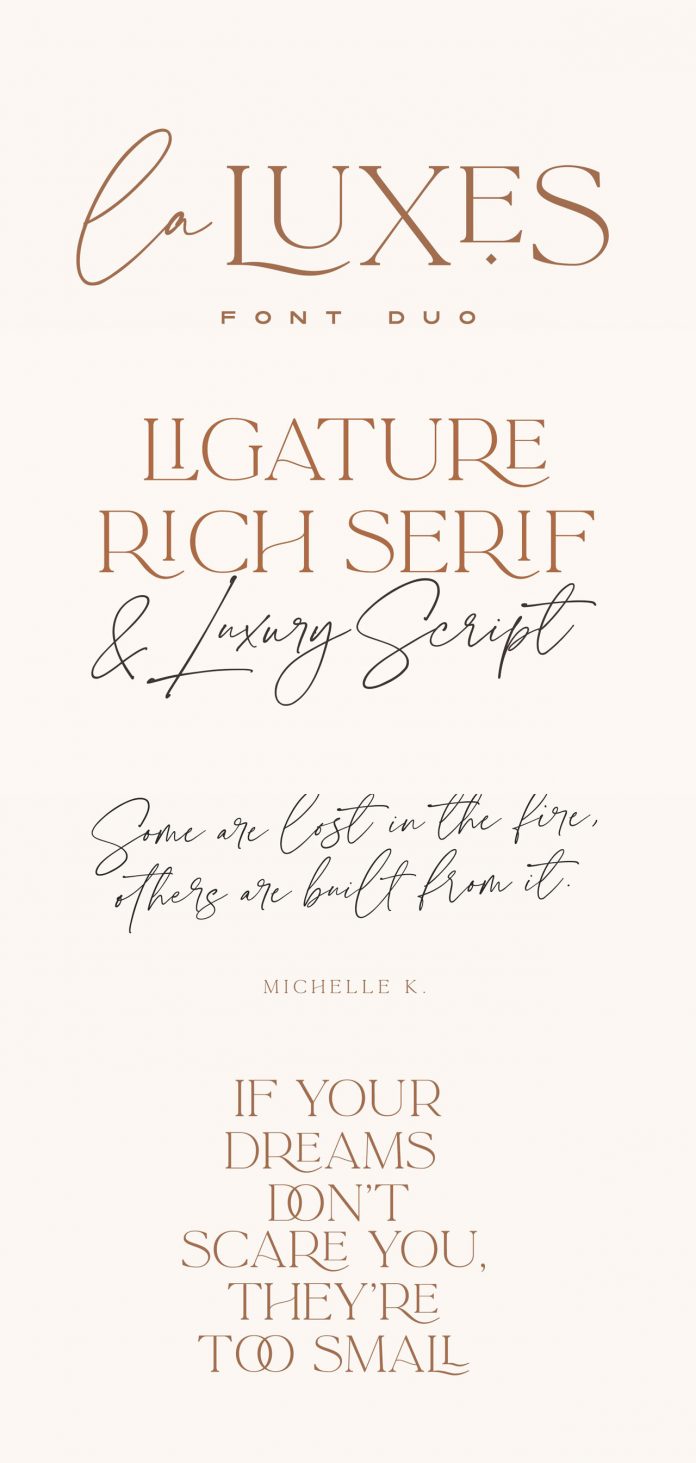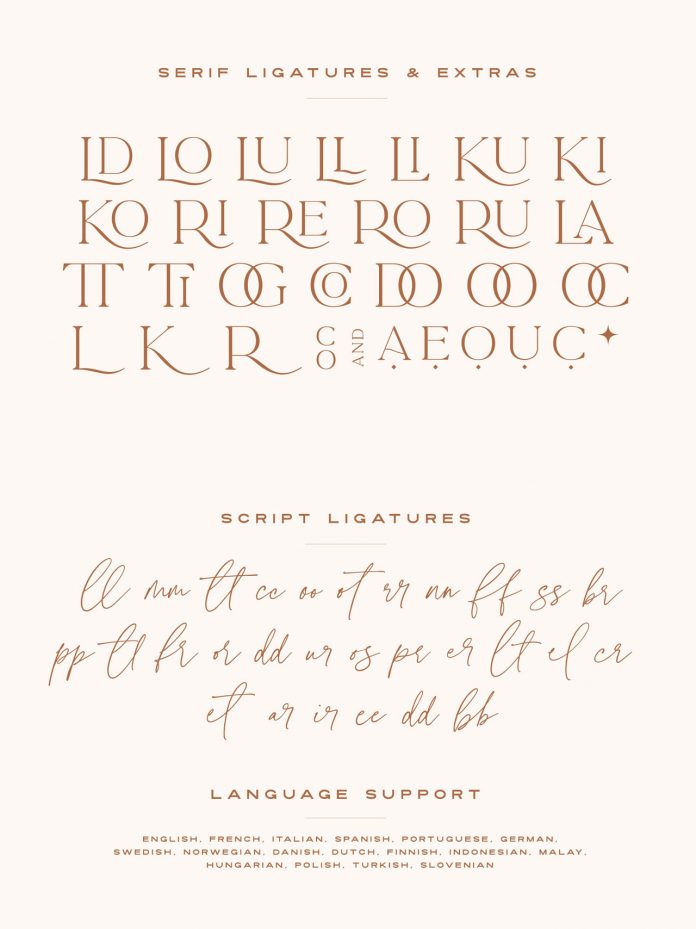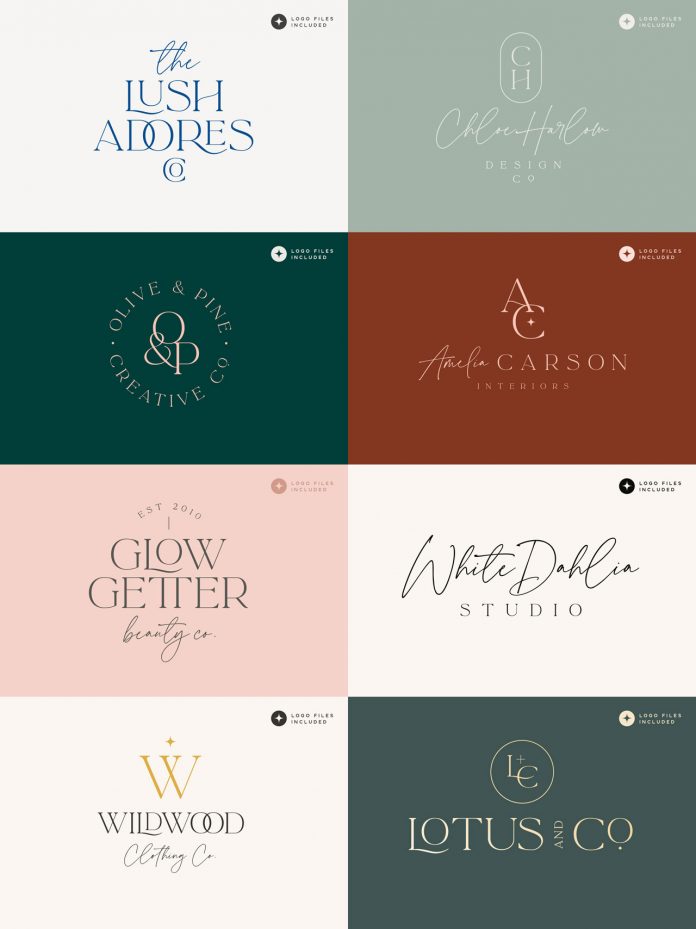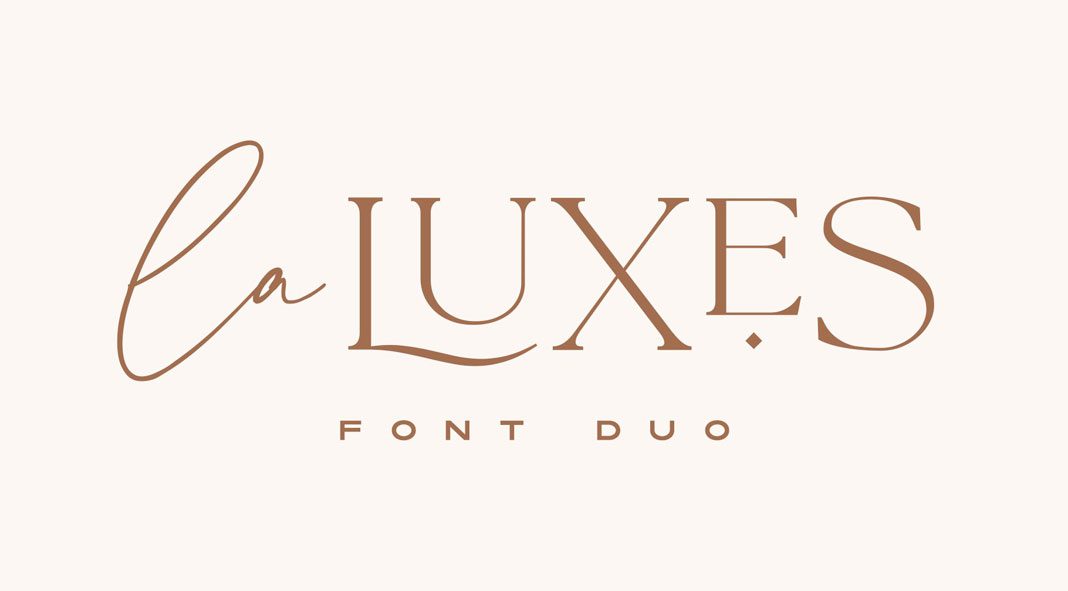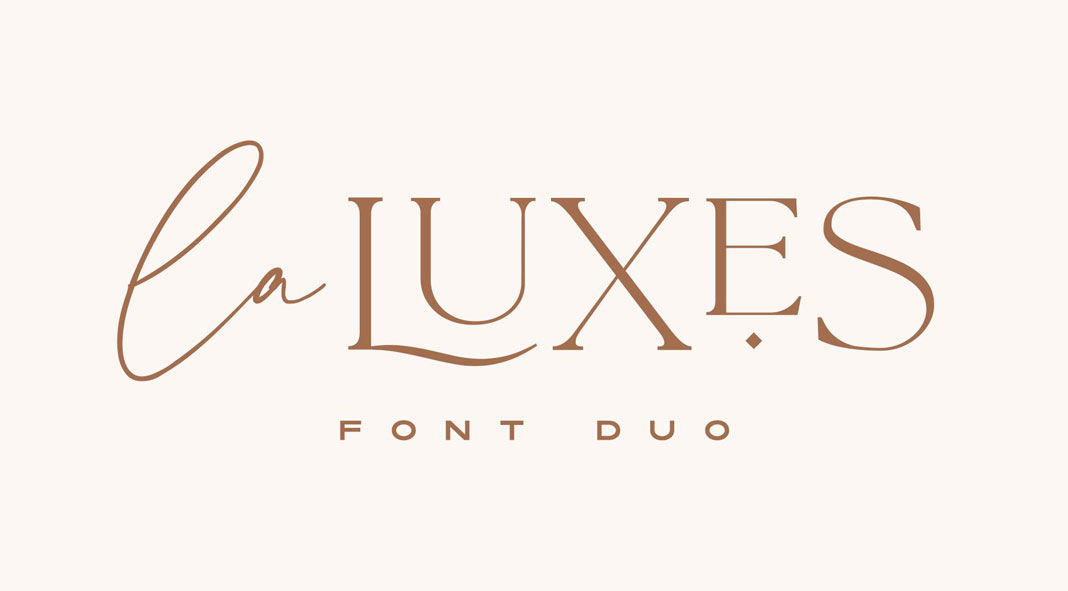
La Luxes, an elegant, vintage-inspired font duo created by typeface designer Sam Parrett.
Designed by Sam Parrett and published at the end of 2019, La Luxes is a luxurious typography pairing consisting of an elegant script and ligature-rich serif font. These fonts have been designed to pair harmoniously, and lend themselves to high-end branding projects as well as logo designs, product packaging, and invitation designs.
La Luxes Script is based on a clean, elegant hand-drawn script typeface containing both upper and lowercase characters as well as all punctuation and numerals. In addition, it comes with 30 ligatures to make your text flow more naturally and add a unique touch to your typographic work.
La Luxes Serif is a stylish and modern all-caps serif font containing uppercase characters, all punctuation, and numerals. It also contains 20 ligatures and 11 special characters to give you a variety of layout options.